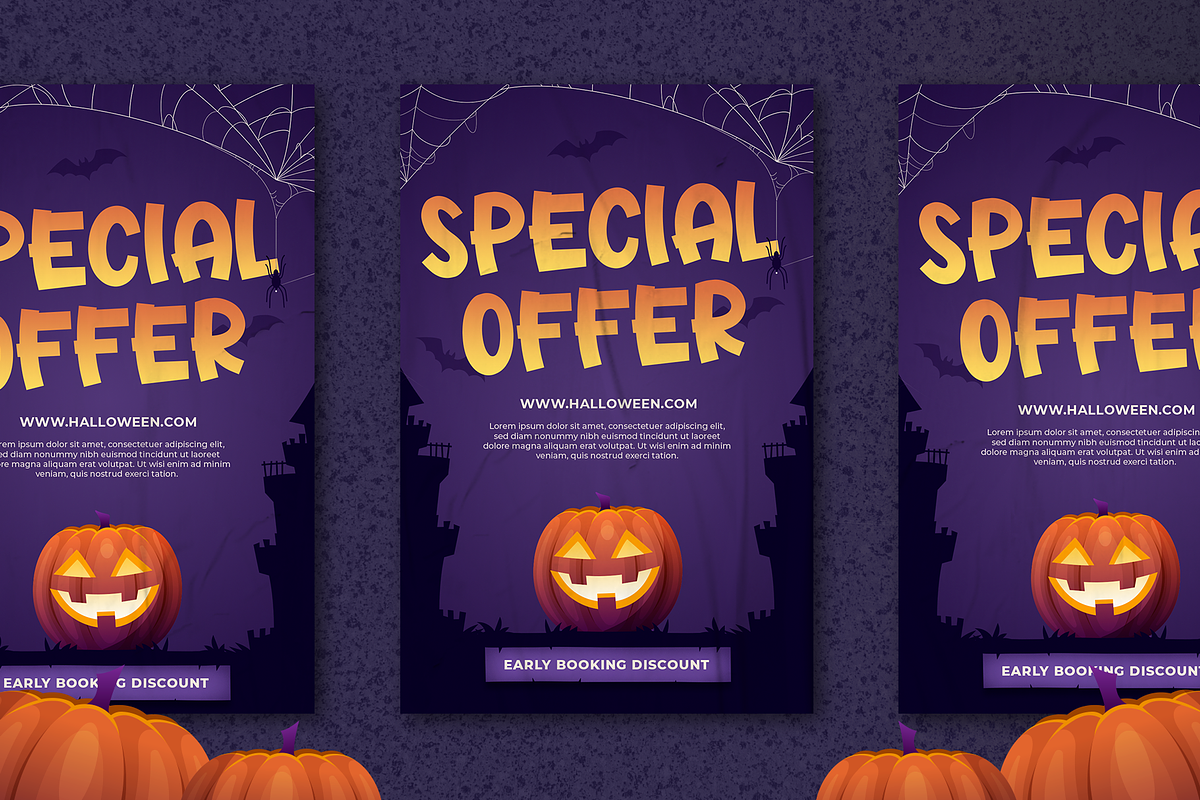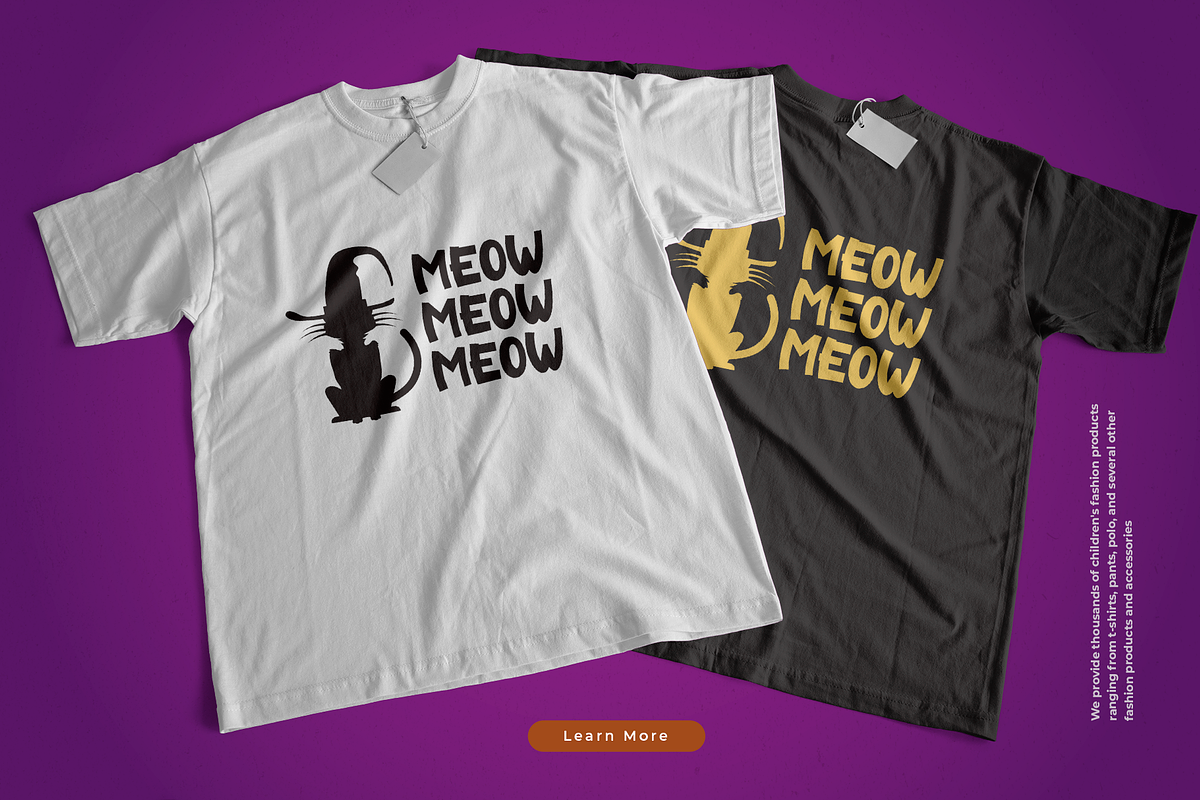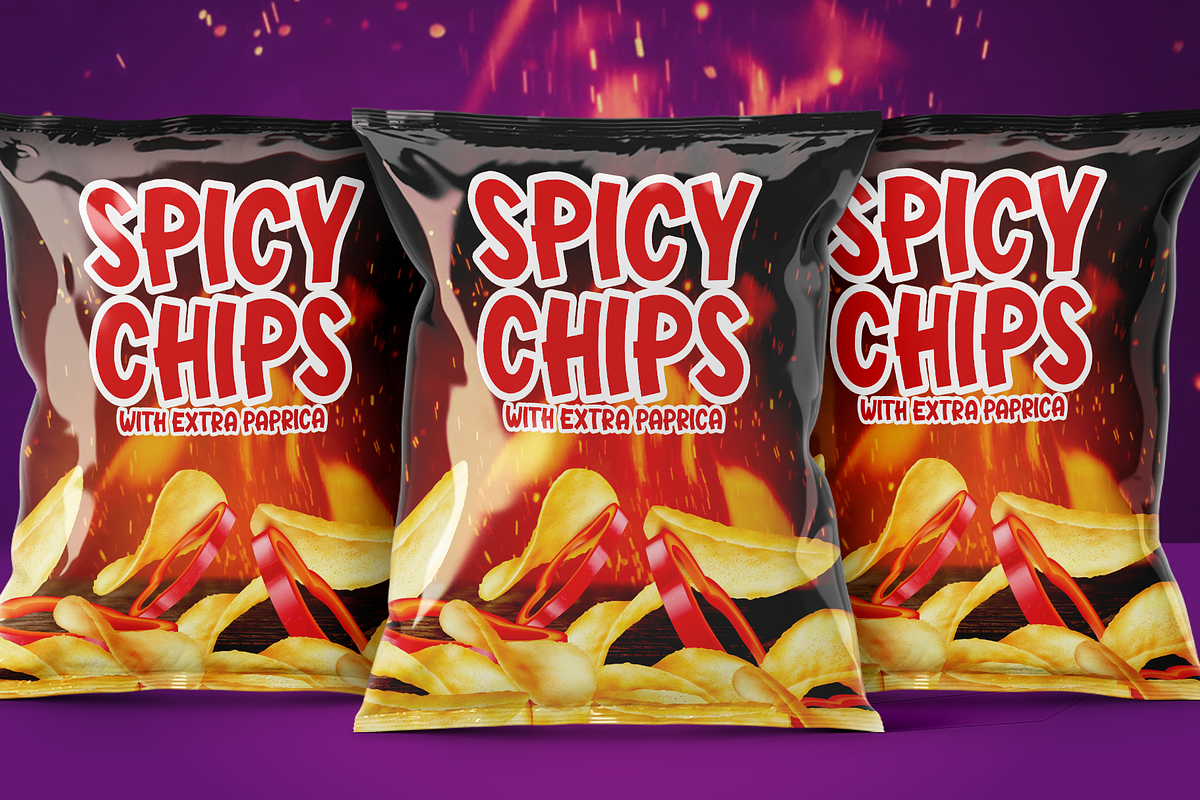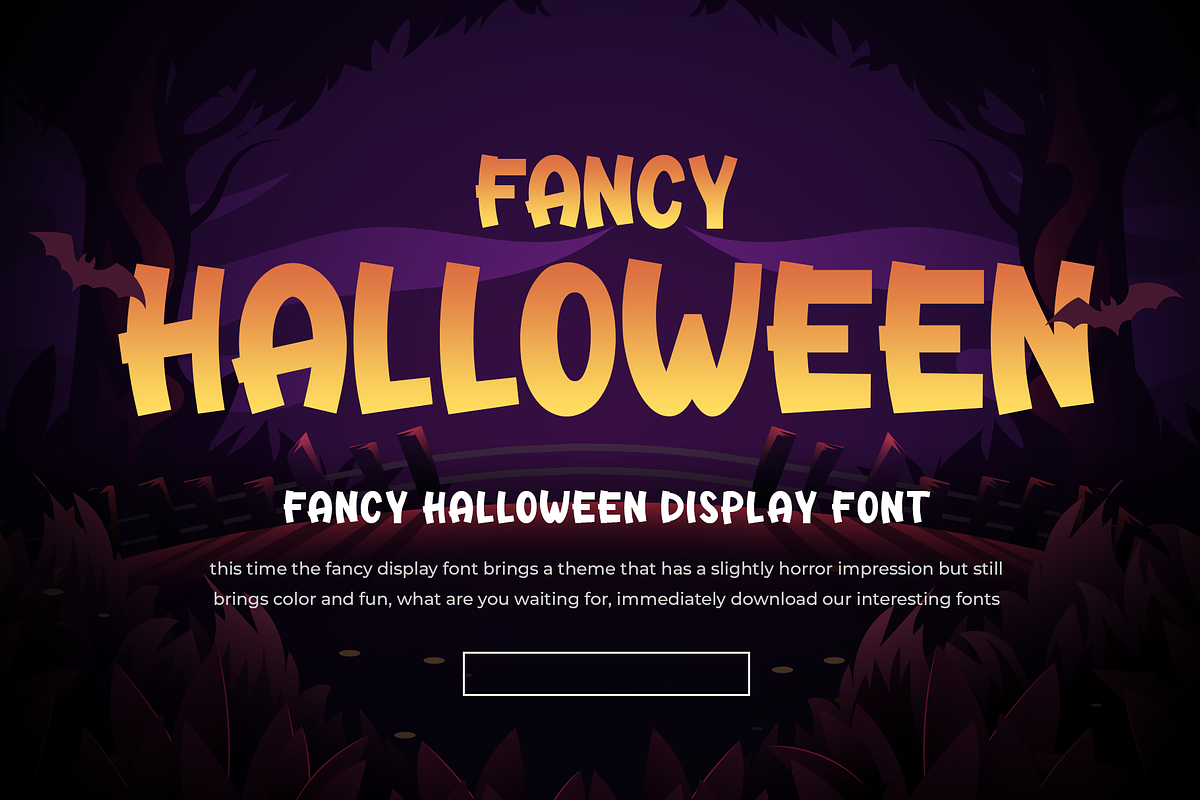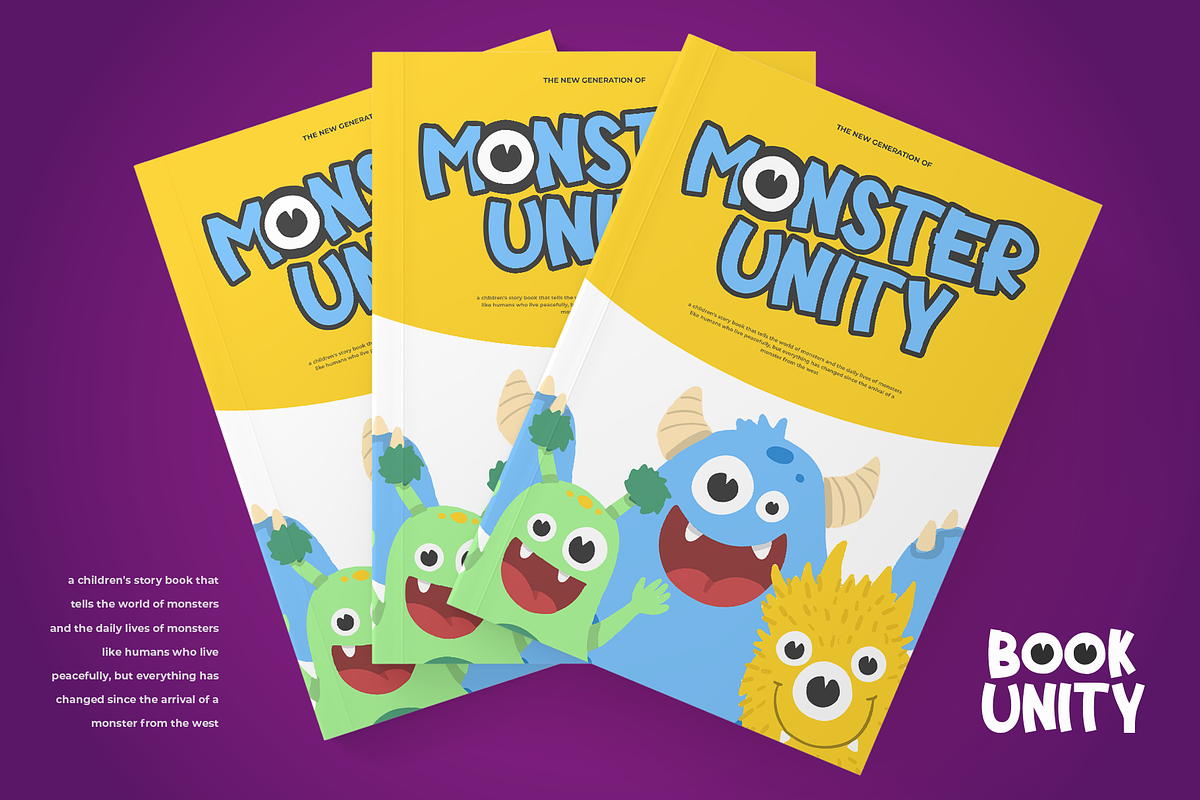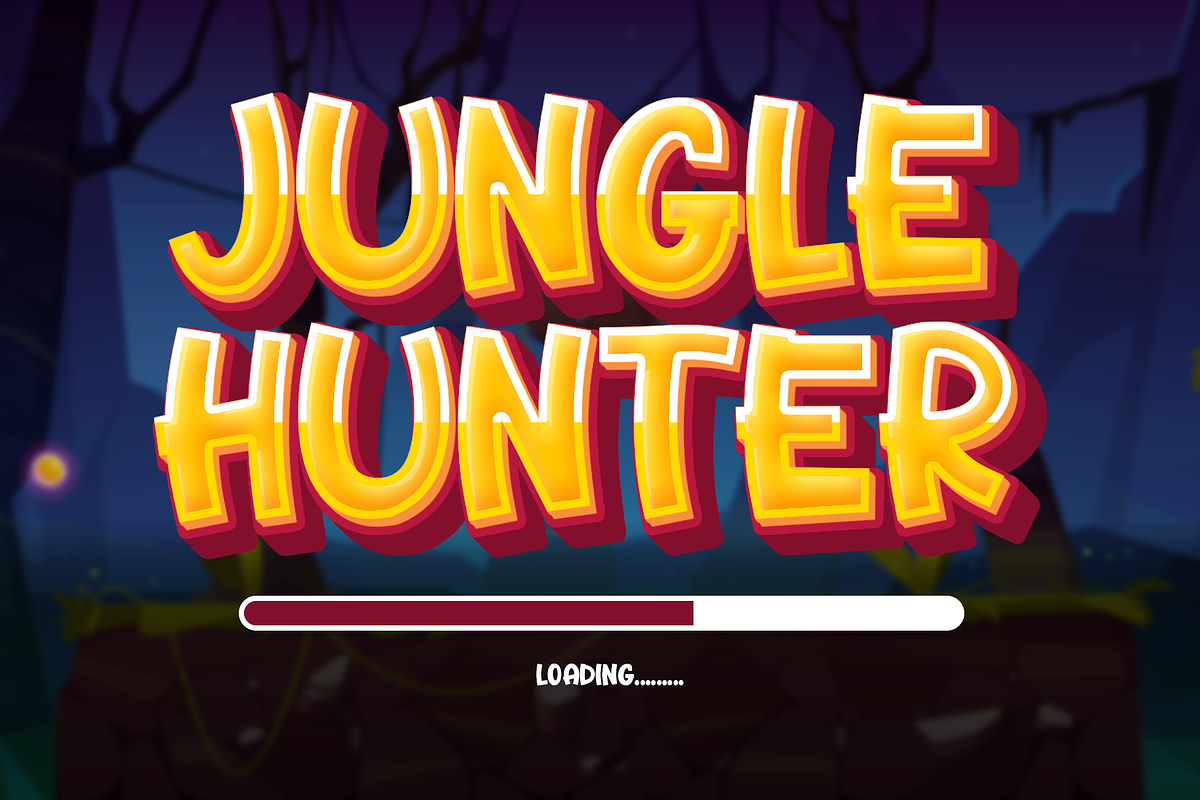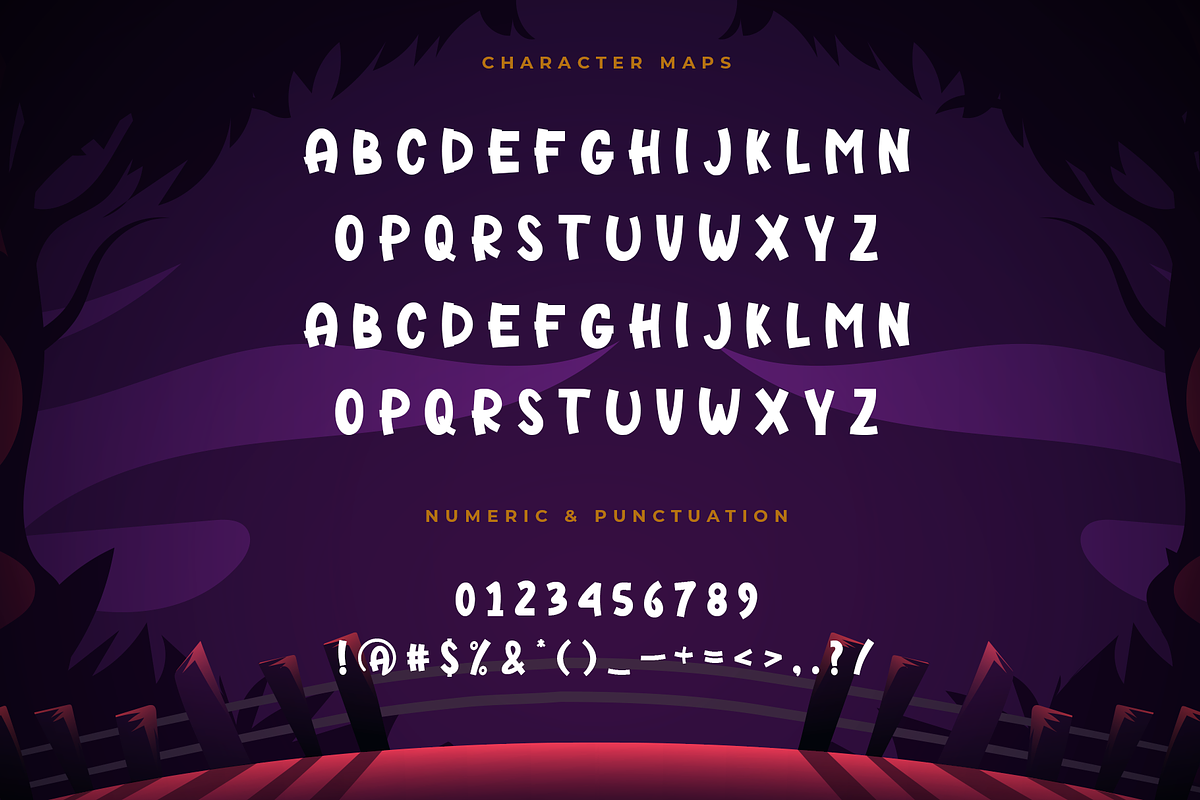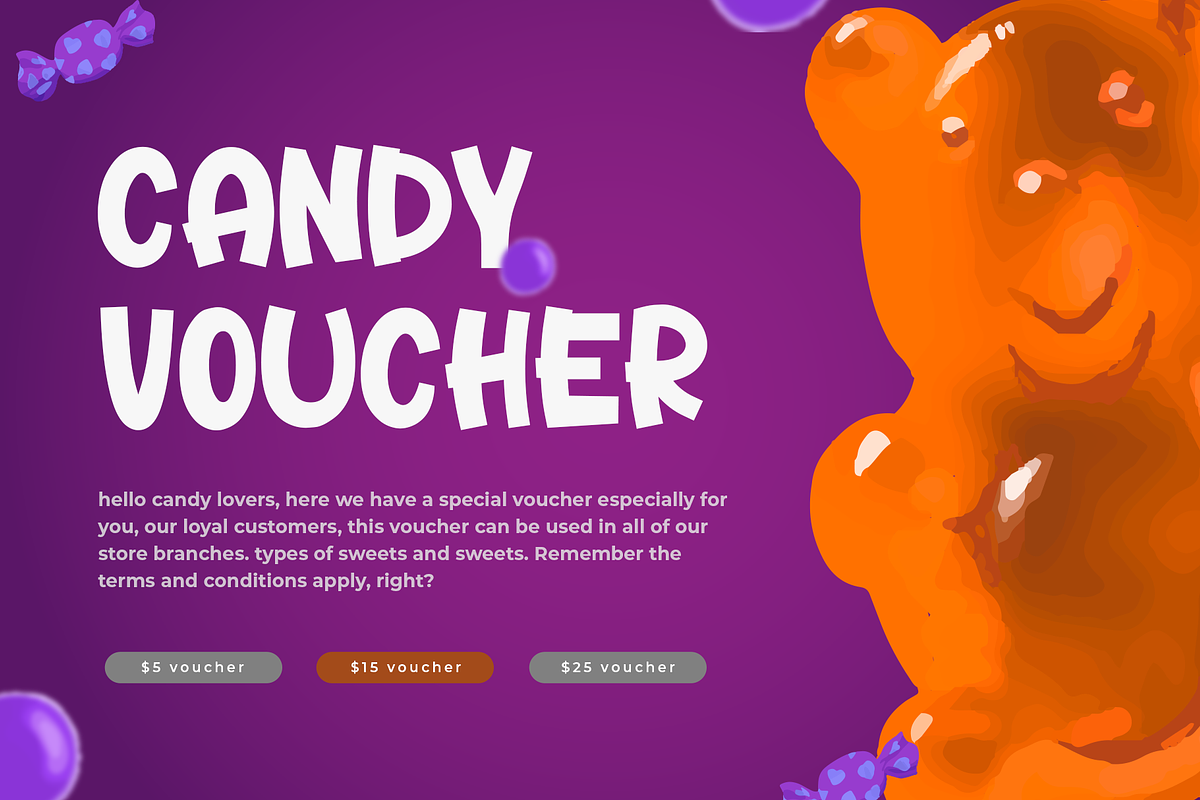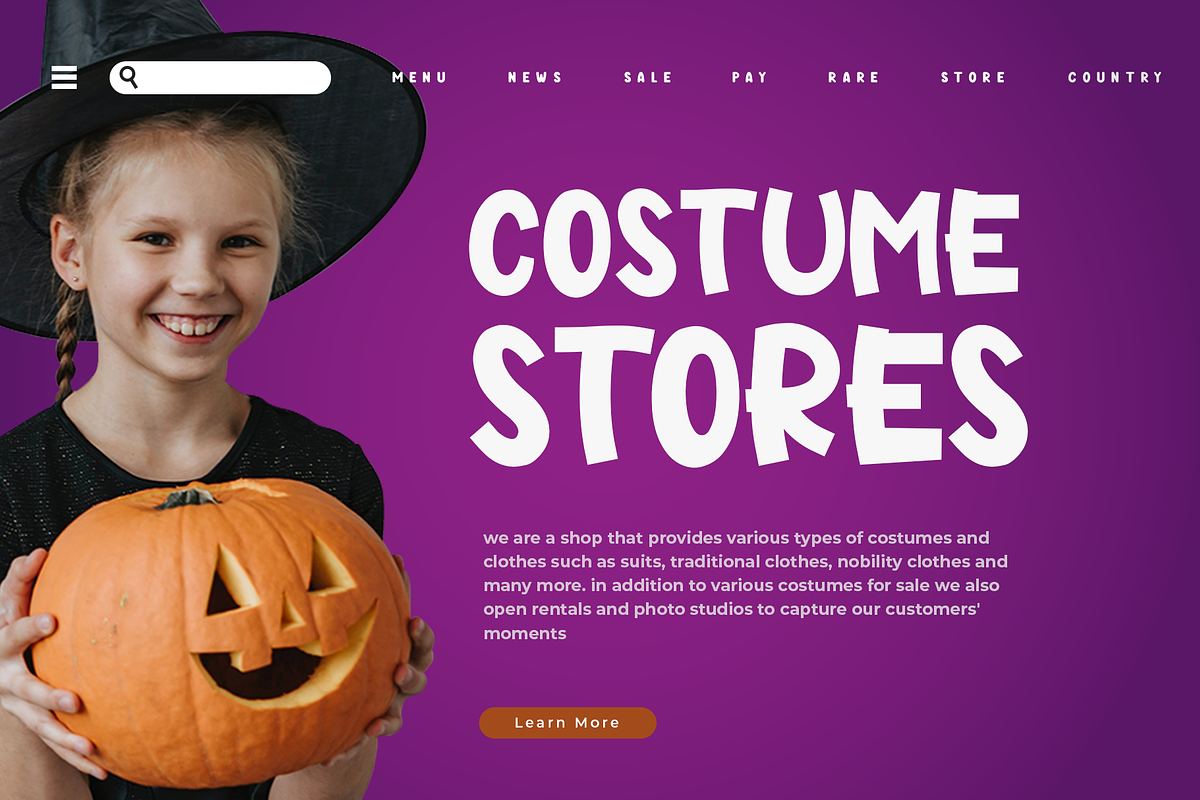
Fancy Halloween Display Font
Fancy Halloween Display Font is a spooky yet playful typeface perfect for Halloween-themed designs. Ideal for party invitations, horror posters, and festive branding, its bold, eerie letterforms blend fun with a slight horror vibe. Suitable for digital media, stickers, and print projects, this font adds a thrilling twist to creative applications. Crafted for designers seeking a unique aesthetic, Fancy Halloween enhances storytelling with its vibrant colors and versatile style. Embrace the season’s spirit with this eye-catching, adaptable font.